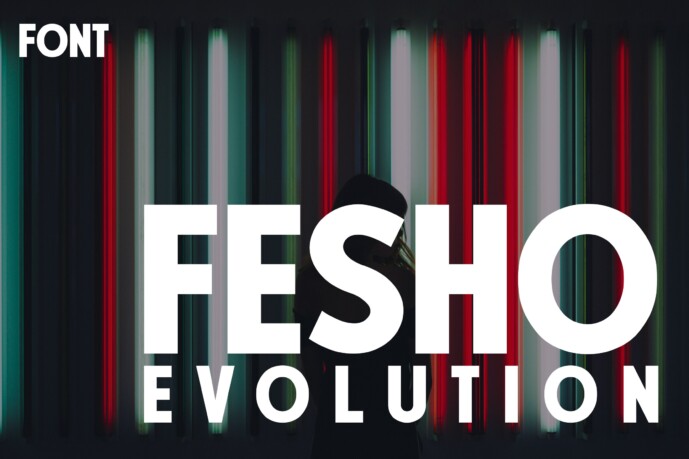
Echoing progress and innovation, Fesho Evolution is a robust, forward-thinking sans serif font that evokes the spirit of the future. Its sleek lines, vibrant curves, and contemporary configuration make it the perfect choice for revolutionary branding, tech pioneers, minimalist packaging, and design work that’s a step ahead.
Mirroring the constant dance of growth and metamorphosis, Fesho Evolution’s progressing forms capture the essence of transformation and advancement brilliantly. Immerse your projects in a wave of energy and modernistic aesthetics, making Fesho Evolution the go-to font for creating visual identities that embrace tomorrow.